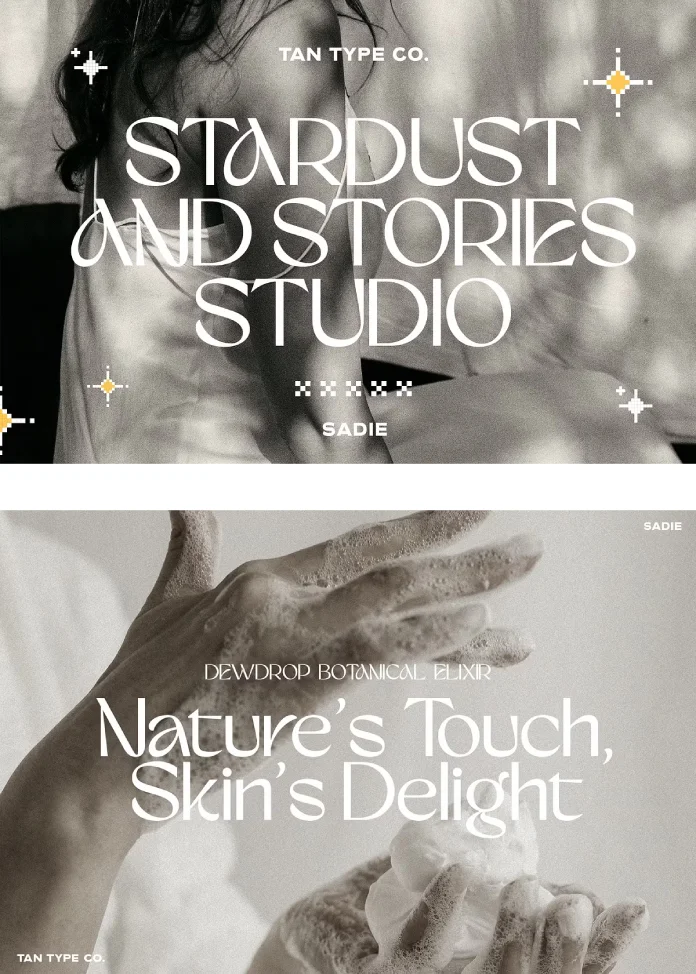
TanType’s Sadi Font is the Secret to Effortlessly Chic & Friendly Design
Some fonts shout. Others whisper. And then, there are fonts that simply smile. The TAN Sadi font from TanType falls firmly into that last category. This is the font that instantly makes you feel at ease. Its clean lines and gentle curves create an atmosphere of approachable elegance. For designers, brand owners, and creators seeking a typeface that communicates warmth without sacrificing sophistication, the TAN Sadi font has quickly become an indispensable tool. It’s more than just a set of characters on a screen; it’s a feeling.
This laid-back sans serif has a remarkably fresh and clean vibe. It’s incredibly easy to read, which makes it a practical choice for a huge range of projects. But its true magic lies in the details. Look a little closer, and you’ll notice subtle, charming quirks that give it a distinct personality. It feels handcrafted and human, yet polished and professional. It’s the kind of font that doesn’t need to try too hard to be cool. Consequently, it has carved out a unique space for itself in the world of modern design.
What Exactly Makes the TAN Sadi Font Special?
At its core, the TAN Sadi font is a sans serif. This means the letters lack the small decorative strokes—or “serifs”—at the ends of their lines. Think of fonts like Times New Roman (a serif) versus Arial (a sans serif). Sans serifs are generally seen as more modern, clean, and minimalist.
However, calling the TAN Sadi font just another sans serif would be a disservice. Its designer at TanType has infused it with a subtle playfulness.
- Simple Shapes, Smooth Lines: The foundation of the font is its simplicity. The letterforms are uncomplicated and instantly legible, ensuring your message is always clear.
- A Hint of Quirk: The unique charm comes from its subtle irregularities. Some letters might have a slightly unexpected curve or a unique terminal. These are not flaws; instead, they are intentional design choices that prevent the font from feeling sterile or robotic. This gives it a warm, almost handwritten quality.
- Balanced Proportions: The font is beautifully balanced. It’s neither too condensed nor too wide, making it comfortable to read in both headlines and longer blocks of text.
Essentially, the TAN Sadi font strikes a perfect balance. It’s professional enough for a corporate logo but friendly enough for a birthday card. What kind of project comes to mind when you think of that combination?
The Personality Behind the Letters: A Fresh, Summery Feel
Imagine a cool breeze on a warm summer day. That’s the feeling the TAN Sadi font evokes. It’s refreshing, light, and utterly pleasant. Furthermore, it’s not fussy or overly formal. It’s not loud or demanding of attention. Instead, it invites you in with a cheerful and easygoing charm.
This personality makes it an incredibly versatile aesthetic font for branding. When you use the TAN Sadi font, you’re communicating specific values to your audience:
- Authenticity: The font’s handcrafted feel suggests honesty and transparency.
- Friendliness: It’s approachable and welcoming, making your brand feel more human.
- Effortless Style: It conveys a sense of quiet confidence and chic minimalism.
For example, a wellness brand could use it to feel more natural and calming. A boutique coffee shop could use it to feel cozy and local. A children’s clothing line could use it to feel playful yet stylish. The possibilities are truly defined by the personality you want to project.
Where Does the TAN Sadi Font Shine Brightest?
Because of its unique blend of readability and personality, this font is a true workhorse. It excels in applications where you want to be both clear and charming. This makes it an excellent candidate for anyone looking for a minimalist font download.
Product Labels & Packaging
This is a standout use case. The clarity of the TAN Sadi font ensures that the ingredients and instructions are easy to read. Simultaneously, its charming personality can make a simple jar of jam or a bottle of lotion feel special and artisanal. It’s one of the best fonts for product labels for a reason.
Branding & Logos
For businesses that want to appear modern, friendly, and trustworthy, the TAN Sadi font is a perfect choice. It can create a memorable and approachable logo that feels both professional and personal.
Social Media Graphics
In a crowded feed, a font that is both easy to read and aesthetically pleasing can make all the difference. The TAN Sadi font helps create beautiful, engaging posts for platforms like Instagram and Pinterest without overwhelming the visuals.
Cards, Invitations, and Signage
Whether for a wedding invitation, a thank-you card, or a sign in a store, this font adds a touch of cheerful elegance. It sets a friendly tone from the very first glance.
Getting Technical: How to Use TAN Sadi Font in Canva and Beyond
TanType’s Sadi font is a modern designer font built with OpenType features. This is a key point for getting the most out of it. OpenType fonts can include special characters like ligatures—custom letter pairs that flow together beautifully, enhancing the handcrafted feel.
The TAN Sadi typeface is a design asset that brings a specific, desirable mood to any project it touches. It’s clean, it’s friendly, and it has just the right amount of personality to make your work stand out. What will you create with it first?